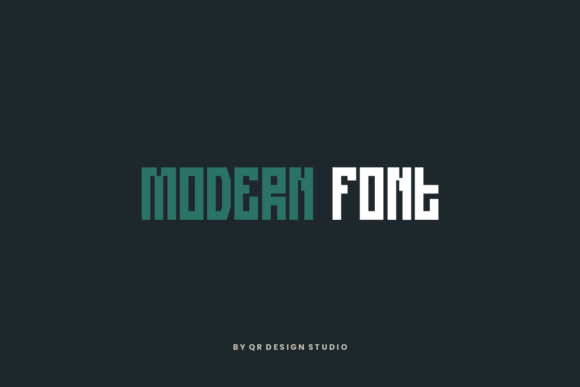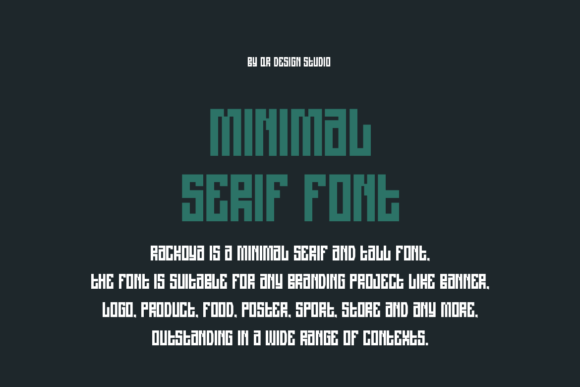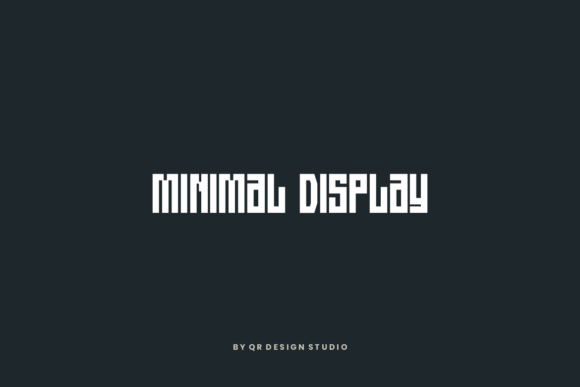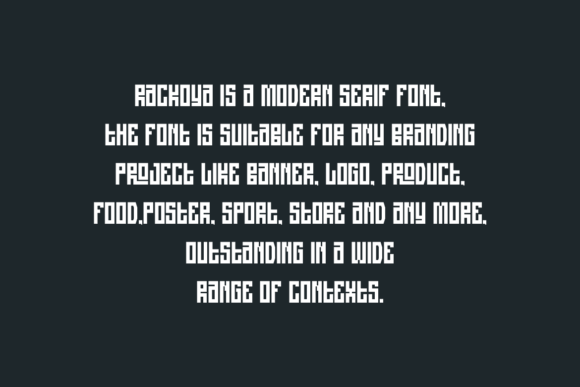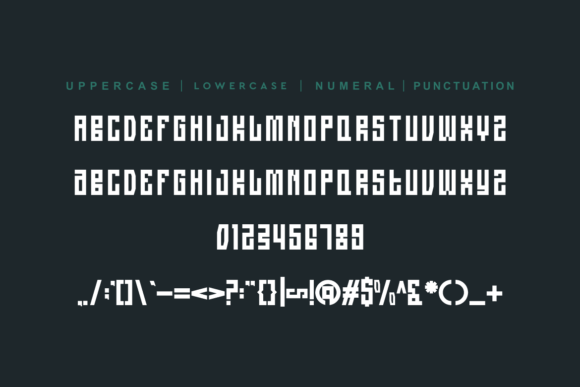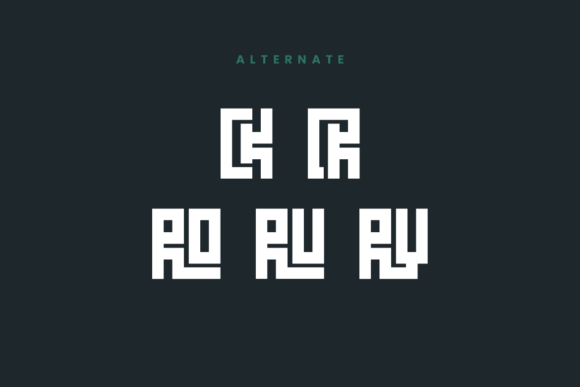
Introduction to Rackoya Font
You’ve finally landed that dream design project – a futuristic magazine cover or a whimsical children’s book illustration. As you start brainstorming ideas, you realize that the perfect font can make all the difference in transporting your audience to a magical world. And that’s exactly where the Rackoya Font comes in – a game-changing sans serif font that will elevate your designs to new heights.
With its unique blend of modernity and playfulness, the Rackoya Font is a high-quality design resource that’s sure to impress. Whether you’re working on a creative project that requires a transparent background or a bold, eye-catching headline, this versatile font has got you covered. And the best part? It’s available for free download, making it an invaluable asset for designers of all levels.
Key Features of Rackoya Font
- High-quality design resource ideal for creative projects and presentations.
- Features a transparent background, allowing for seamless integration with any design.
- Perfect for use in graphic design, web design, and digital art, thanks to its clean and modern design.
- Supports a wide range of languages, making it a versatile design resource for global projects.
Honest Review: Rackoya Font
I recently stumbled upon the Rackoya Font, and I must say it’s been a game-changer for my creative projects. As a designer, I’m always on the lookout for high-quality fonts that can elevate my work and give me that extra edge.
- What works well: The Rackoya Font offers a clean and modern design that’s perfect for a wide range of creative projects. I’ve used it for everything from brochures to business cards, and it always looks fantastic.
- What works well: The font is incredibly versatile, with a range of styles and weights to choose from. This makes it easy to find the perfect fit for my design needs.
However, there are a few limitations to be aware of. ⚠️ One of the main issues I’ve encountered is that the font doesn’t work well with transparent backgrounds. This can be a bit of a problem if you’re working on a design that requires a lot of transparency.
Overall, I’m really impressed with the Rackoya Font. It’s a high-quality design resource that’s perfect for designers of all levels. The fact that it’s free to download is just the icing on the cake. I’d highly recommend it to anyone looking for a reliable and versatile font for their creative projects. ✨
The Rackoya Font is suitable for various creative projects, including:
- Logo designs
- Website headers
Does the Rackoya Font have a transparent background?
Yes, the Rackoya Font features a transparent background, making it perfect for use on images with complex backgrounds. This allows you to easily place the font on top of any design without worrying about distracting backgrounds.